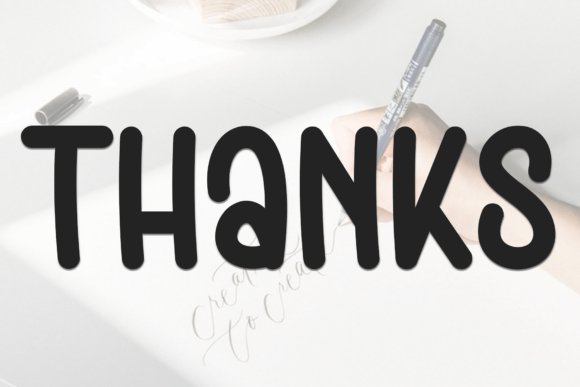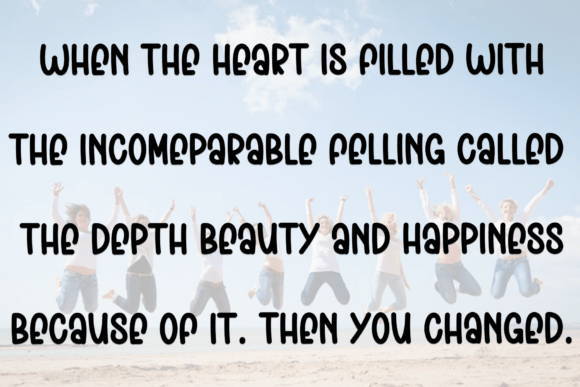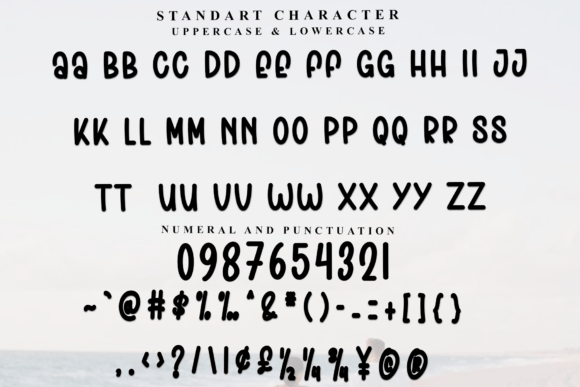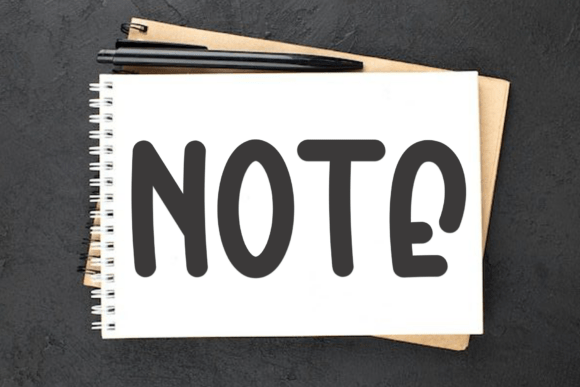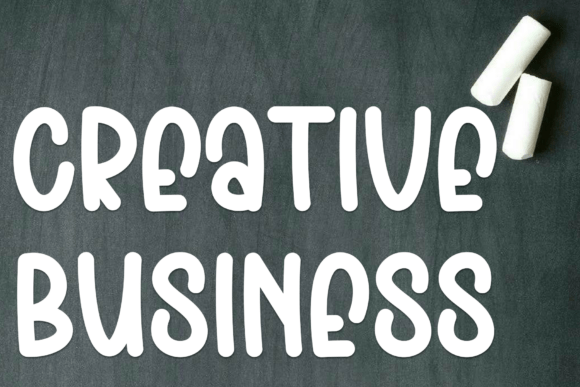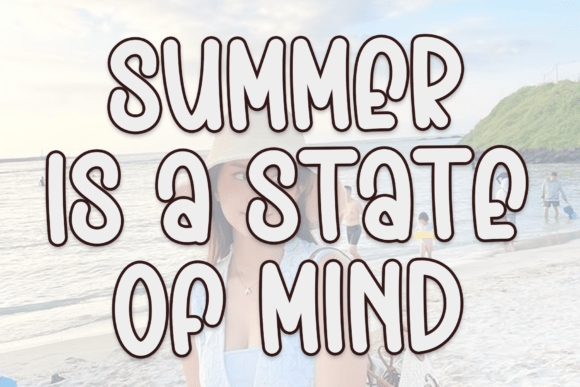
The Designer’s Delight: Uncovering the Charm of Blue Sticky Font
Have you ever been in the middle of a design project, and suddenly, you’re stuck on finding the perfect font? I recall a similar experience while working on a craft project for a client who wanted a unique, eye-catching font that would make their brand stand out. After hours of searching, I stumbled upon Blue Sticky Font, and it instantly became my go-to choice. In this article, I’ll share my love for this beautiful font, its features, and how to make the most of it in various design applications.
An Honest Review of Blue Sticky Font
What I Love About Blue Sticky Font ✨
- 💫 Unique and eye-catching design: Blue Sticky Font boasts a soft, distinctive touch that sets it apart from other fonts.
- ✅ Versatility: Its special character makes it suitable for a wide range of design projects, from crafts to creative works.
- 🌈 Variety of characters: This font offers a diverse set of characters, ensuring you have plenty of options for your designs.
While Blue Sticky Font is an excellent choice, there are a few minor limitations to consider:
- 🤔 Limited availability of extended character sets: Some users might find the character set a bit limited for certain projects.
The Backstory of Blue Sticky Font
Blue Sticky Font was designed with the intention of creating a unique, eye-catching typeface that would add a personal touch to various design projects. The designer aimed to craft a font that was not only beautiful but also versatile and easy to use. The result is a font that has become a favorite among designers, crafters, and creative hobbyists.
| What makes Blue Sticky Font unique? | Blue Sticky Font boasts a soft, distinctive touch and a special character that sets it apart from other fonts. |
| Does Blue Sticky Font support OpenType features? | Yes, Blue Sticky Font supports OpenType features, allowing you to experiment with glyphs, stylistic alternates, and more. |
In conclusion, Blue Sticky Font is a beautiful and versatile font that can elevate your designs, making them appealing to a wide range of audiences. With its unique character, compatibility with various applications, and support for OpenType features, it’s an excellent choice for designers, crafters, and creative hobbyists.